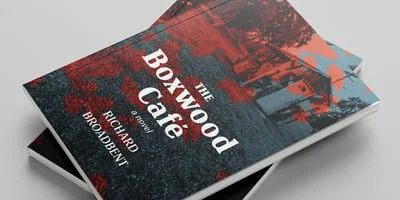
Farthing Font
Farthing Font is perfect for vintage English pub branding, classic British tea shop signage, historical museum materials, traditional coin collecting guides, antique store identity, heritage banking institutions, Victorian-era publications, historical society documents, and nostalgic British social media content. This distinguished typeface brings British heritage and historical elegance to both digital and print design applications.
Farthing Font is exciting because it embodies the timeless tradition and historical significance of British monetary heritage, making it an exceptional choice for designers who want to convey authentic history with genuine British appeal. Its classical letterforms and heritage character provide the perfect combination of historical elegance and traditional functionality, ensuring your projects communicate tradition, authenticity, and British excellence that resonates with audiences seeking genuine historical experiences and heritage authenticity.
The Farthing Font family includes heritage weight variations and traditional elements, featuring light, regular, and bold weights with complementary classical styles, historical ligatures, and British-inspired decorative flourishes. Each style maintains consistent heritage aesthetics while offering flexibility for different historical applications, allowing designers to create authentic visual systems that reflect British values and traditional sophistication.
Whether you're designing for heritage brands, historical organizations, or traditional British projects, Farthing Font delivers authentic British appeal and historical sophistication that connects with audiences seeking genuine heritage experiences and traditional excellence. This premium typeface offers designers the classical elegance and British charm needed to create designs that communicate historical authenticity, heritage quality, and British tradition effectively. The font's distinguished character makes it perfect for heritage branding, historical campaigns, and traditional applications where authentic British credibility is essential. Download Farthing Font today and heritage-fy your creative projects with genuine British sophistication and historical typography excellence that defines traditional design standards.